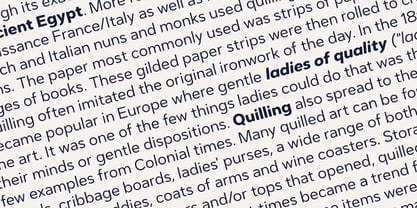
Dexa Round
by Artegra
About the family
Dexa Round is the round cornered version of the Dexa Pro superfamily. It has 18 fonts with thin to black weights, along with their true italic counterparts. With more than 770 glyphs per font, It supports all the Latin languages as well as the Cyrillic ones.
OpenType features: small caps, caps to small caps, alternates, old style figures, tabular lining, old style tabular lining, language localizations, ligatures, superscript, subscript, numerators, denominators, fractions, historical forms.